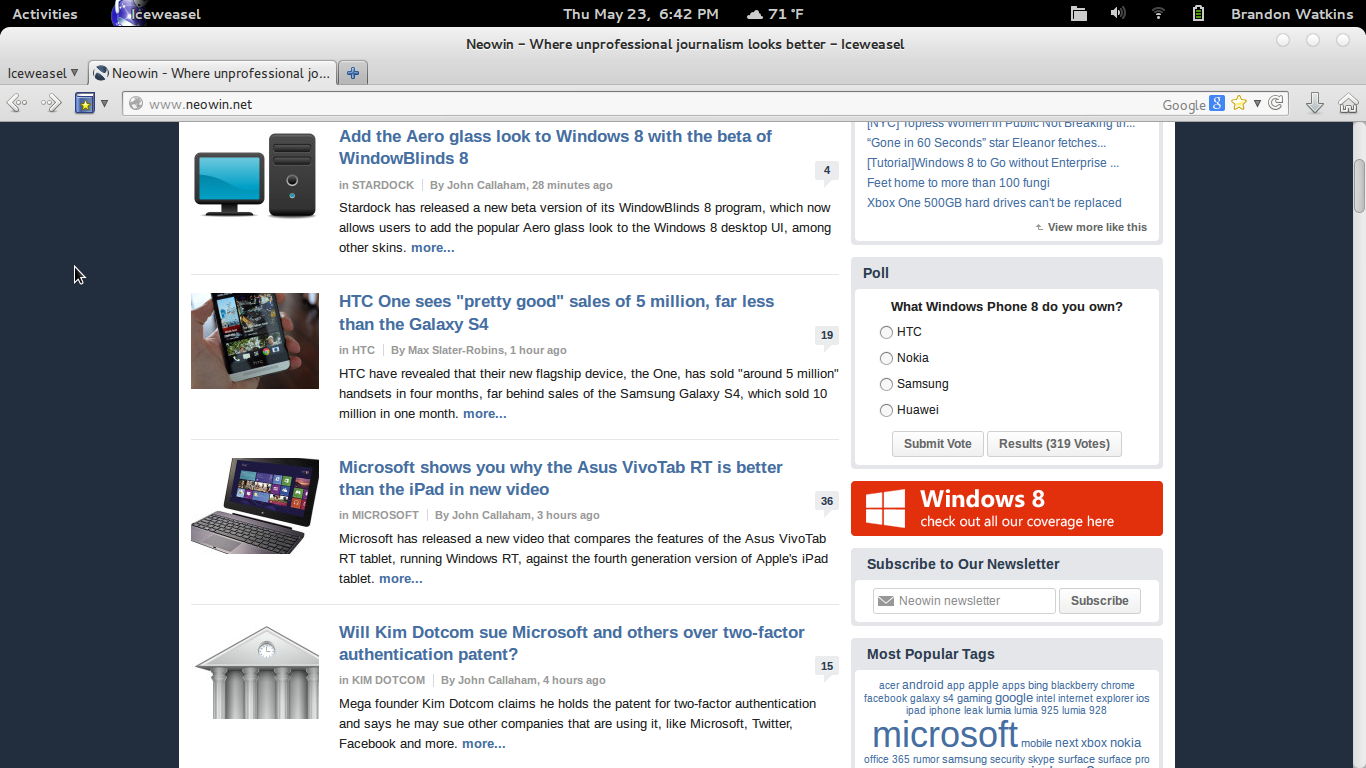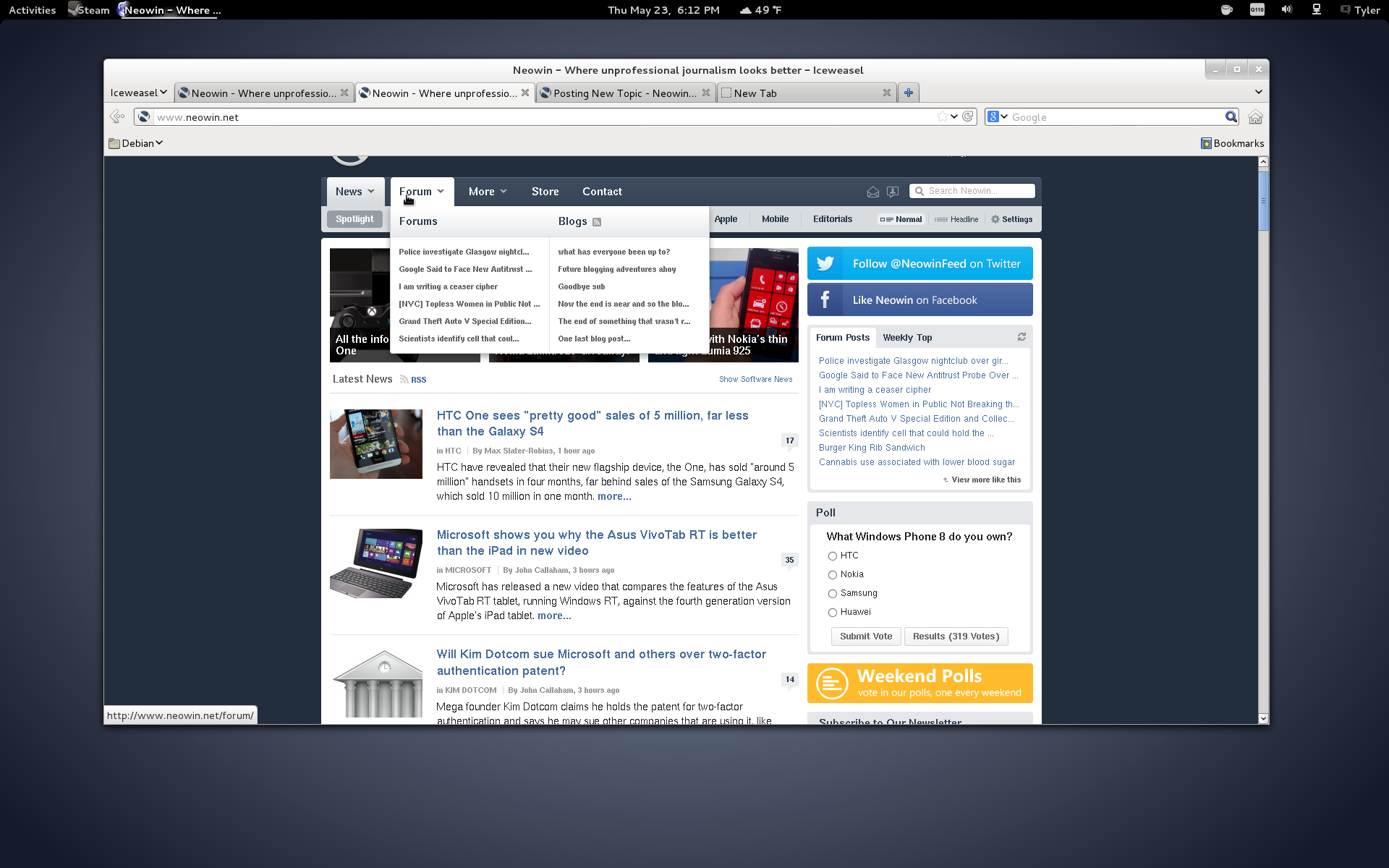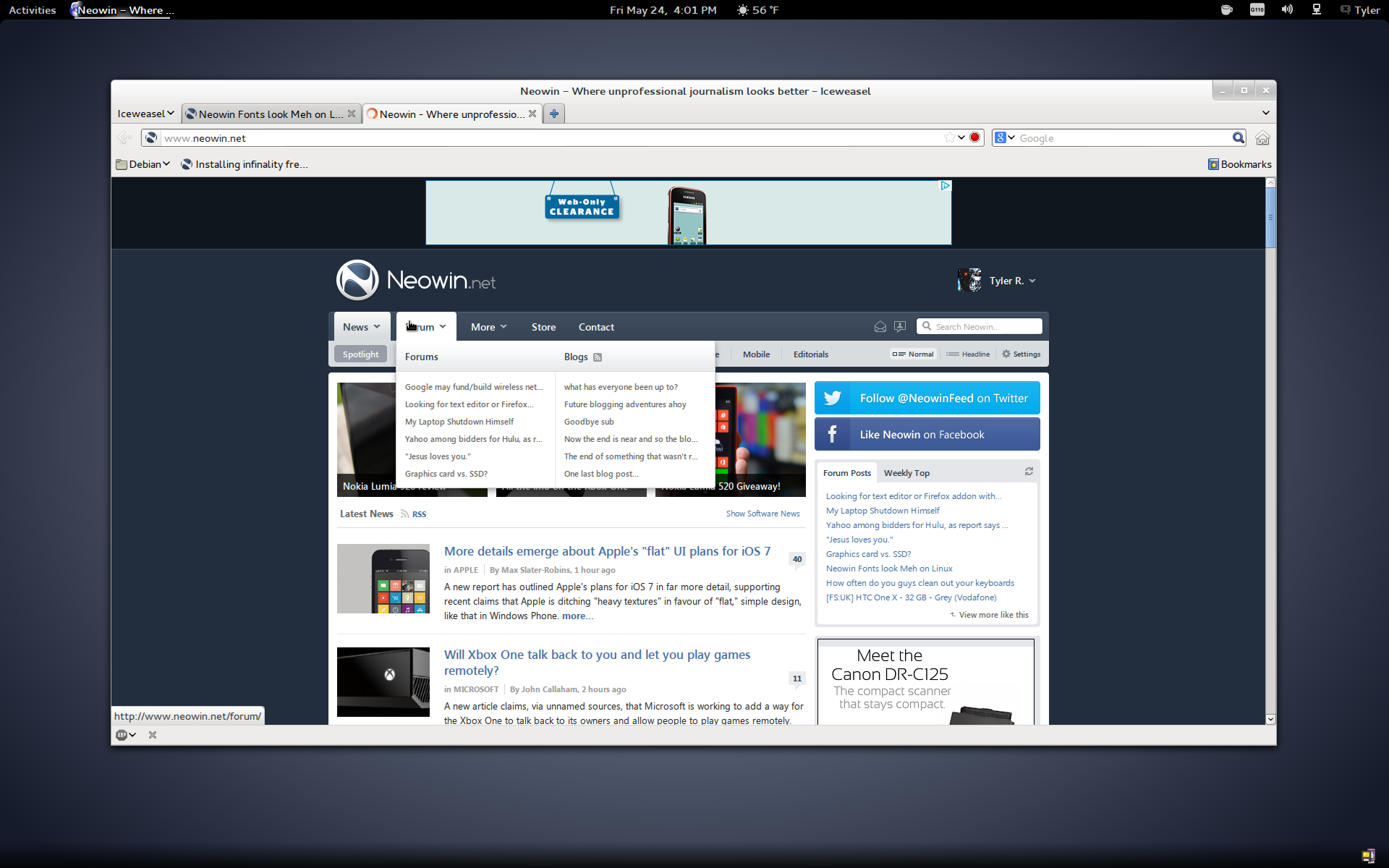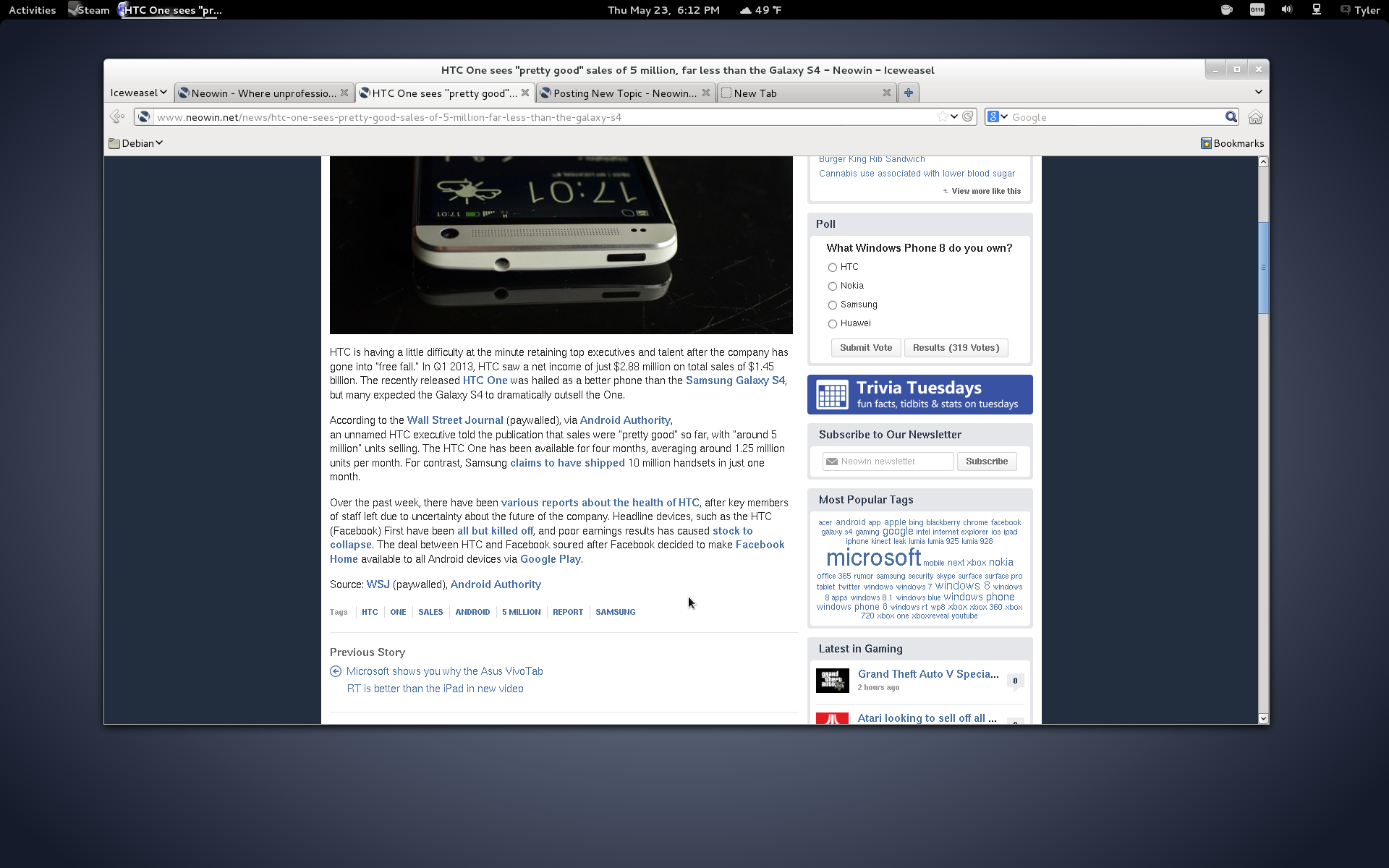
This is a sign that one might be spending too much time on computers and might need to step outdoors once in awhile imo.. seriously, it's font..
Buddy, you joined 7 days ago and you're already trolling. I don't like my fonts jagged and fused together, thank you.
We don't use Microsoft truetype fonts, pretty sure it's helvetica, tahoma, arial etc (uses the first one you have on your system and ignores others) I also see the OP is blocking ads :(
Edit: Just checked, we use these: 'Segoe UI', Segoe, 'Helvetica Neue', Helvetica, Arial, FreeSans, sans-serif
Thing is, Arial looks great on Mac, (possibly Linux too?) but not in Windows which is why we use Segoe UI
We don't use Microsoft truetype fonts, pretty sure it's helvetica, tahoma, arial etc (uses the first one you have on your system and ignores others) I also see the OP is blocking ads :(
Edit: Just checked, we use these: 'Segoe UI', Segoe, 'Helvetica Neue', Helvetica, Arial, FreeSans, sans-serif
Thing is, Arial looks great on Mac, (possibly Linux too?) but not in Windows which is why we use Segoe UI
They look great if you use the infinality freetype/fontconfig packages. I wrote a guide on installing them in debian: http://www.neowin.ne...__fromsearch__1